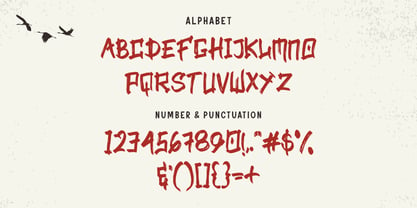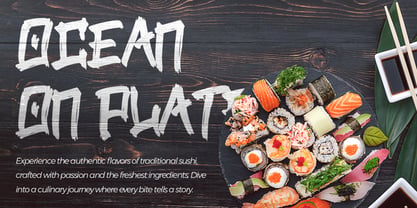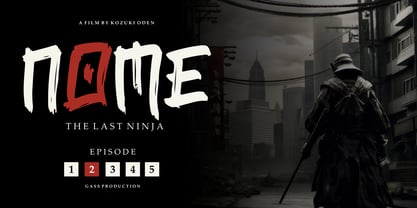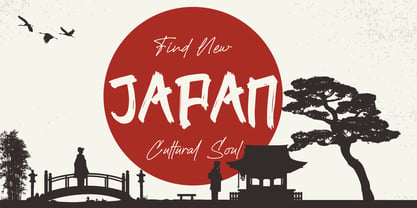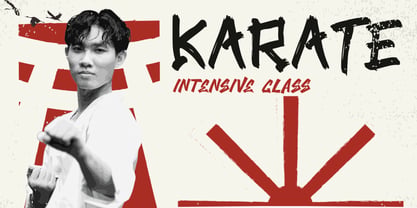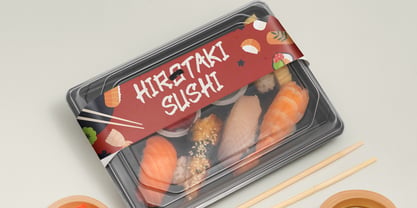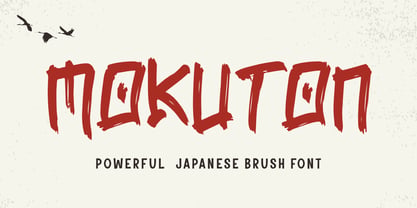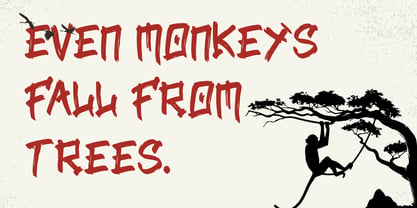
Mokuton
The Mokuton Font Family was designed by Sipanji and published by Sipanji21. Mokuton contains 1 styles. More about this family
Mokuton is a bold and expressive Japanese brush font inspired by ancient calligraphy and modern anime energy. Its dynamic strokes and ink-like texture embody the spirit of tradition and power, perfect for projects that demand strength, authenticity, and character. Ideal for posters, manga titles, Asian-themed branding, martial arts event promos, logos, and apparel, Mokuton brings a fierce yet artistic vibe to any design. With multilingual support and PUA encoding, this font is ready to elevate your visuals with dramatic flair and cultural depth.